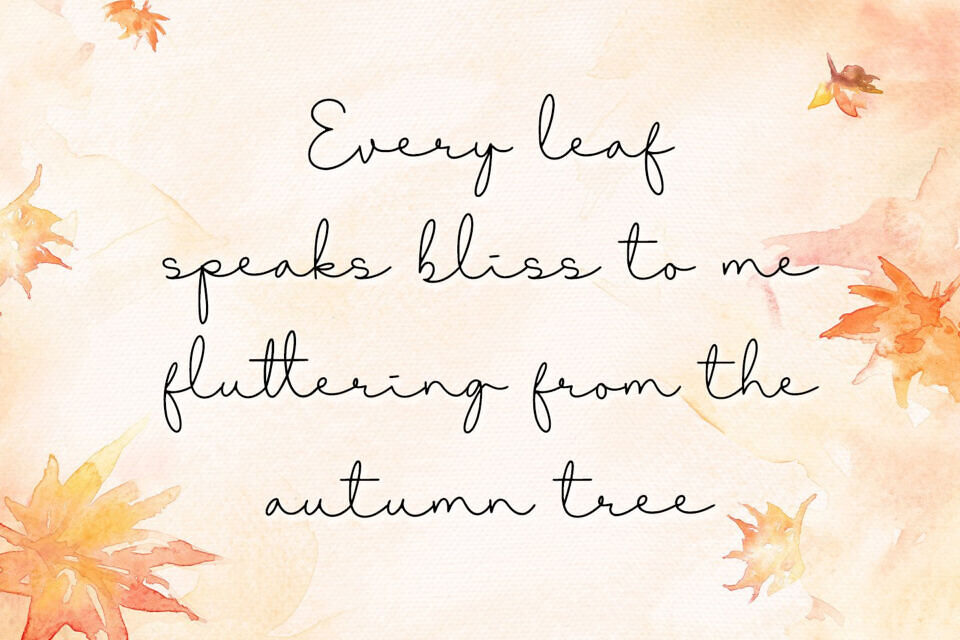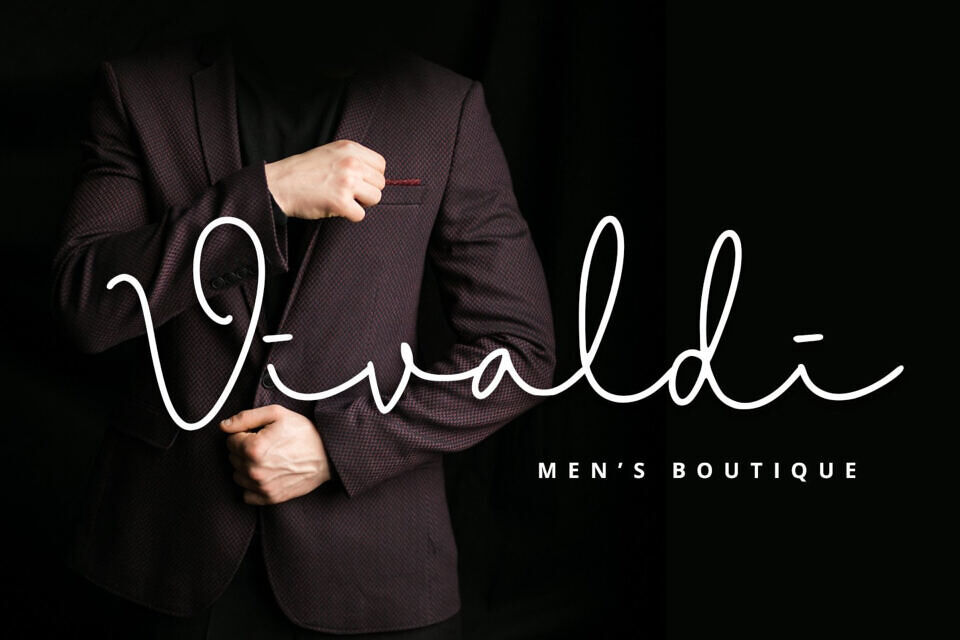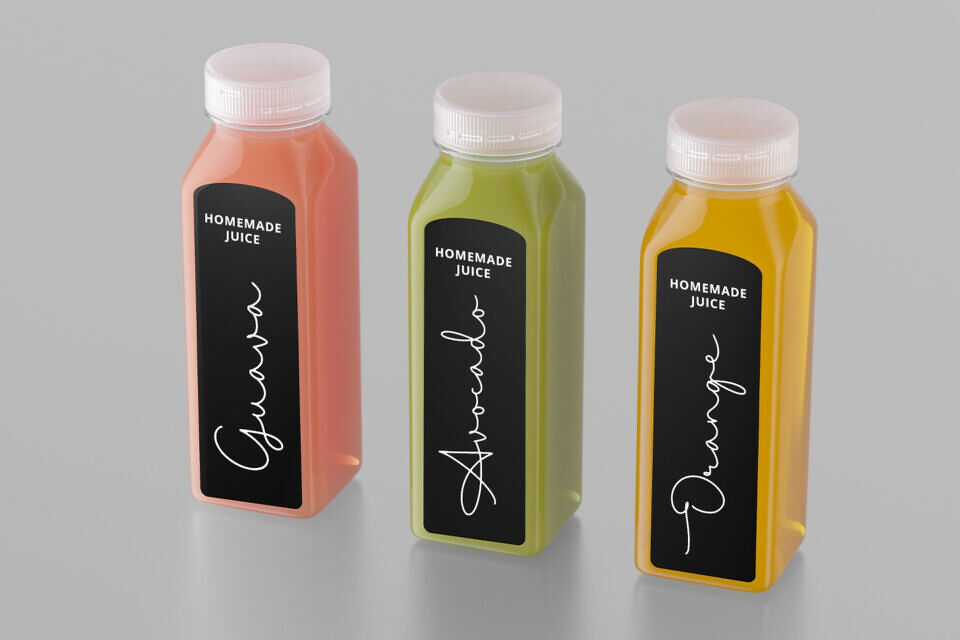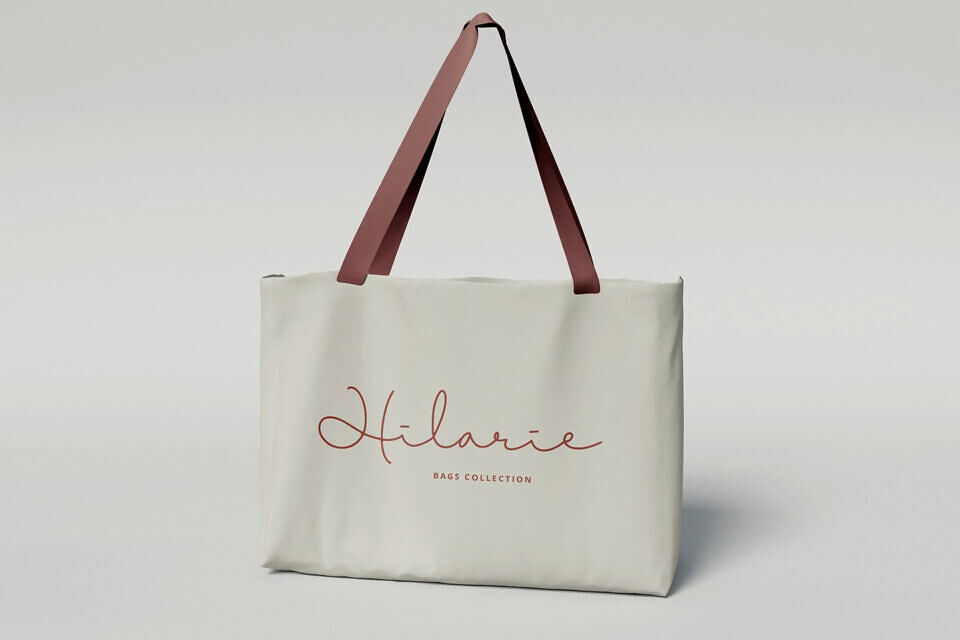
Fabulous Font
Fabulous is a dazzling script font. This font is neatly crafted and highly detailed. Whatever the topic, this font will be a wonderful asset to your font library, as it has the potential to enhance any creation.
Designed by: Abo Daniel